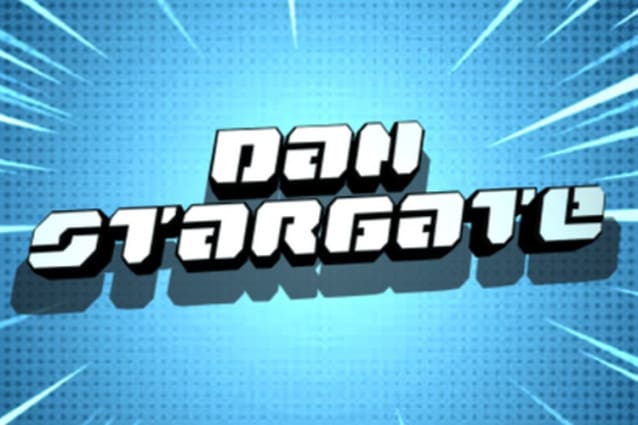
Dan Stargate Font
Dan Stargate Font, Suitable for any design needs : logo, branding, modern advertising design, logos, poster quote, book / cover Title, editorial design, website / blog, card, t-shirts, and any hand-lettered needs.
Classification: 3D Fonts, Display Fonts, Stencil Fonts, Techno / Futuristic Fonts